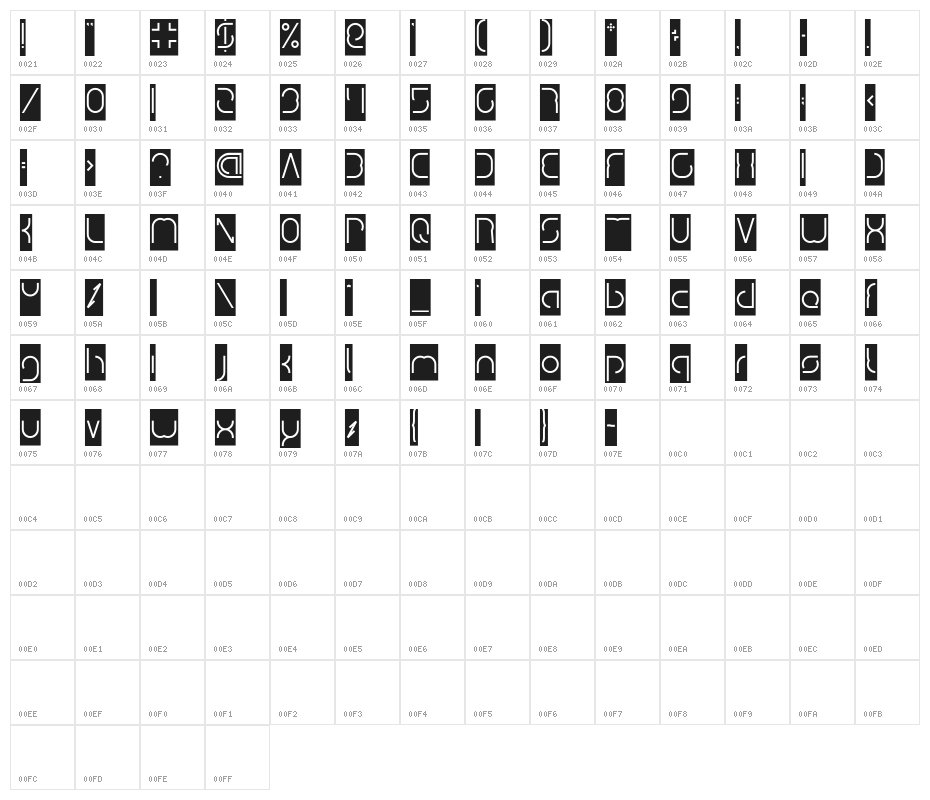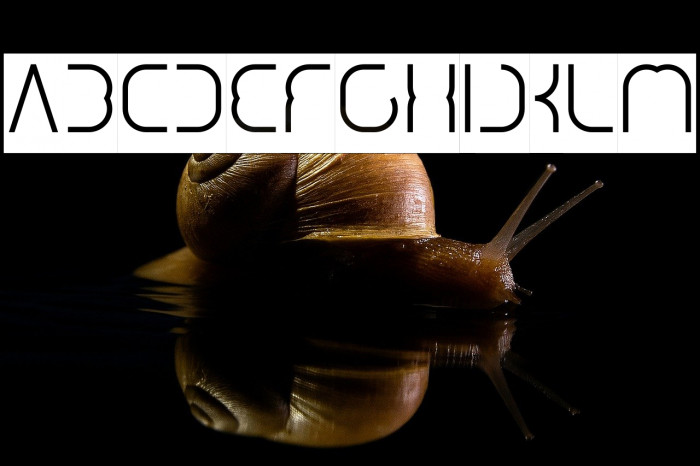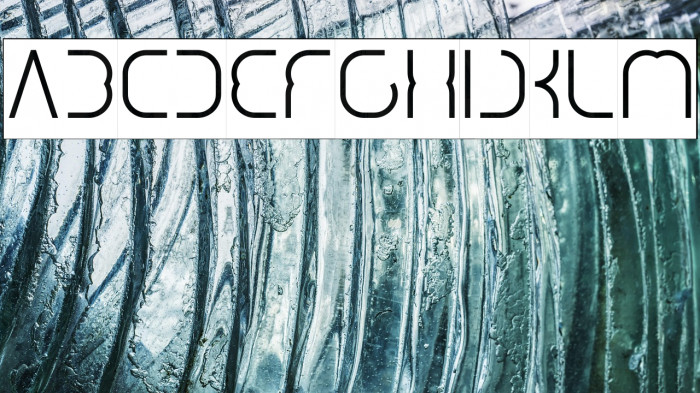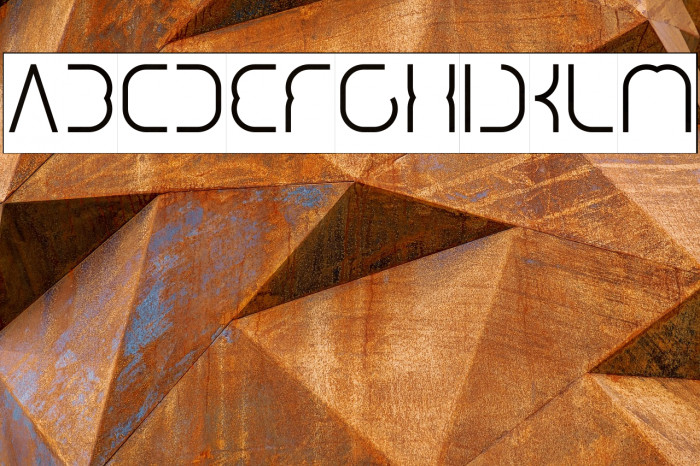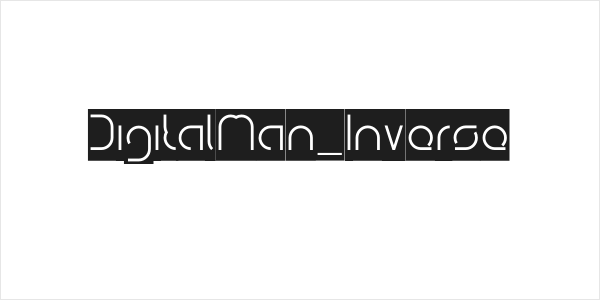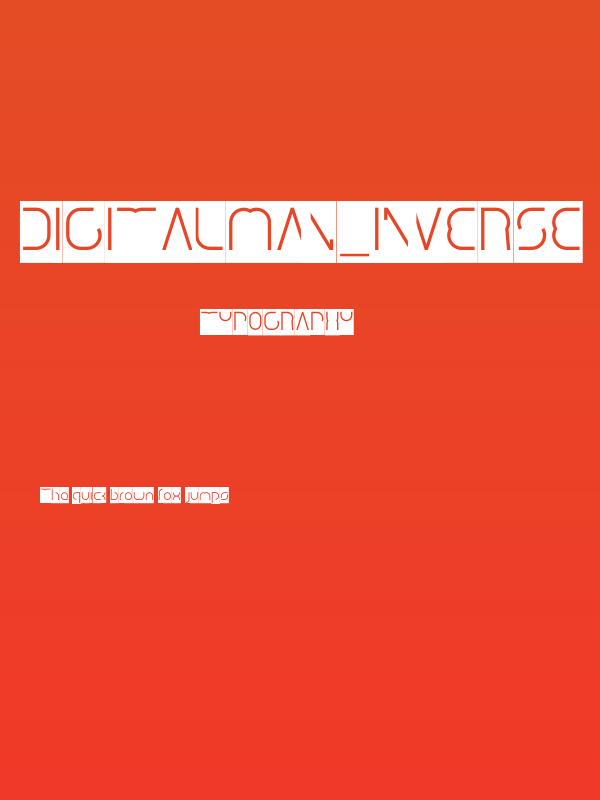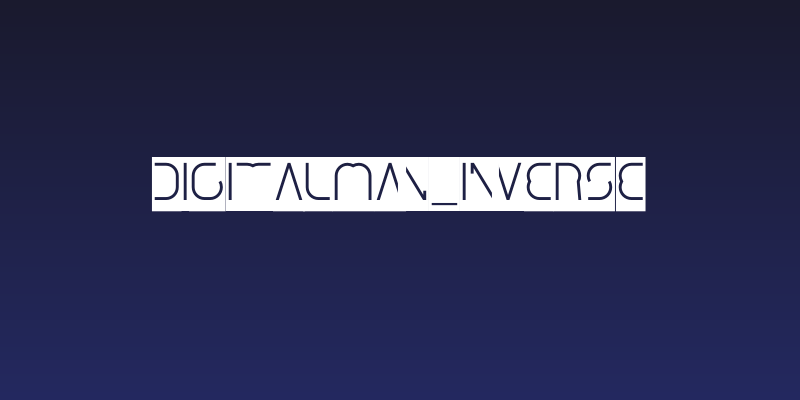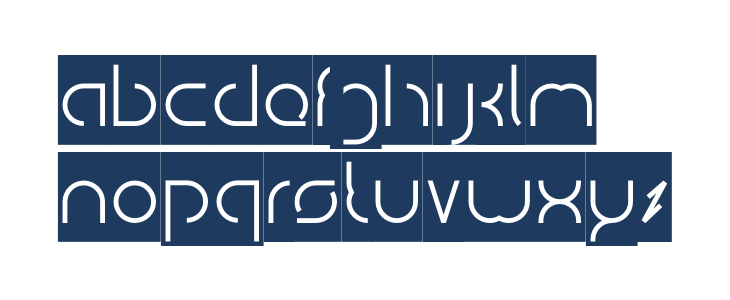
DigitalMan_Inverse Font
DigitalMan_Inverse Description
This typeface features a futuristic and geometric design, characterized by its clean lines and sharp angles. The letters are constructed with a consistent stroke width, creating a uniform appearance. The uppercase and lowercase letters share a similar structure, enhancing the font's cohesive look. The numerals and special characters maintain the same geometric style, ensuring visual harmony across all glyphs. The font's modern aesthetic makes it suitable for digital and tech-related projects, offering a sleek and contemporary feel.
| Use Case | Headlines, Logos, Digital interfaces |
| Proposed Projects | Ideal for digital interfaces, tech branding, modern posters, and futuristic designs. |